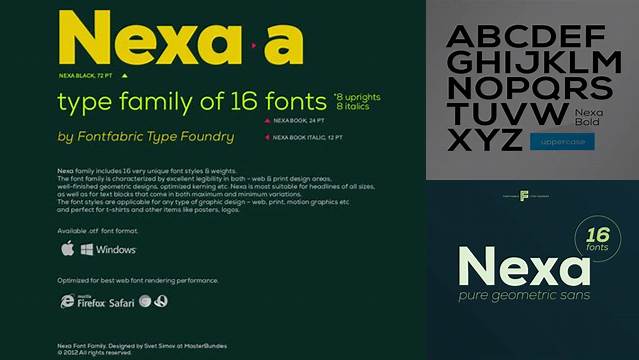
Hey guys! Are you looking to add a touch of modern elegance and versatility to your design projects? Look no further than the Nexa Black font family! This amazing font is a favorite among designers for its clean lines, readability, and overall aesthetic appeal. And the best part? You can get a Nexa Black font family free download! In this comprehensive guide, we'll dive deep into everything you need to know about Nexa Black, where to download it safely, how to use it effectively, and some awesome design tips to get you started. Get ready to transform your projects with this incredible font! So, let's jump right in!
Unveiling the Allure: What Makes Nexa Black Font Special?
Alright, before we get into the nitty-gritty of the Nexa Black font family free download, let's talk about why this font is such a big deal. Nexa Black is a part of the wider Nexa font family, known for its geometric and minimalist design. The Black weight, however, takes it up a notch. It's bold, it's impactful, and it commands attention. Think of it as the confident older sibling of the Nexa family. This font is perfect for headings, titles, and any text that you want to stand out from the crowd. One of the primary reasons for its popularity is its incredible versatility. You can use it in a wide array of design projects, from websites and logos to posters and presentations. Whether you're designing for a corporate client or a personal project, Nexa Black can adapt to any style.
So, what are the key features that make Nexa Black so special? Firstly, the font boasts clean, modern lines that give a sleek and sophisticated look. Its geometric design is balanced and easy on the eyes, making it incredibly readable, even at larger sizes. Secondly, the font family usually comes with multiple weights and styles. Although you are specifically looking for the Black weight, knowing that you can get others such as Light, Regular, Bold and other weights, can expand your design possibilities. This allows you to maintain a consistent brand identity. Thirdly, Nexa Black supports multiple languages, meaning that your text will look great regardless of the language. This is especially important if you have an international audience. Finally, the font is generally easy to license and obtain for both personal and commercial use, making it a practical choice for many designers and creatives. The design community is constantly looking for fonts that are both aesthetically pleasing and functionally efficient, and the Nexa Black font family ticks all the boxes, which is why a Nexa Black font family free download is so in demand.